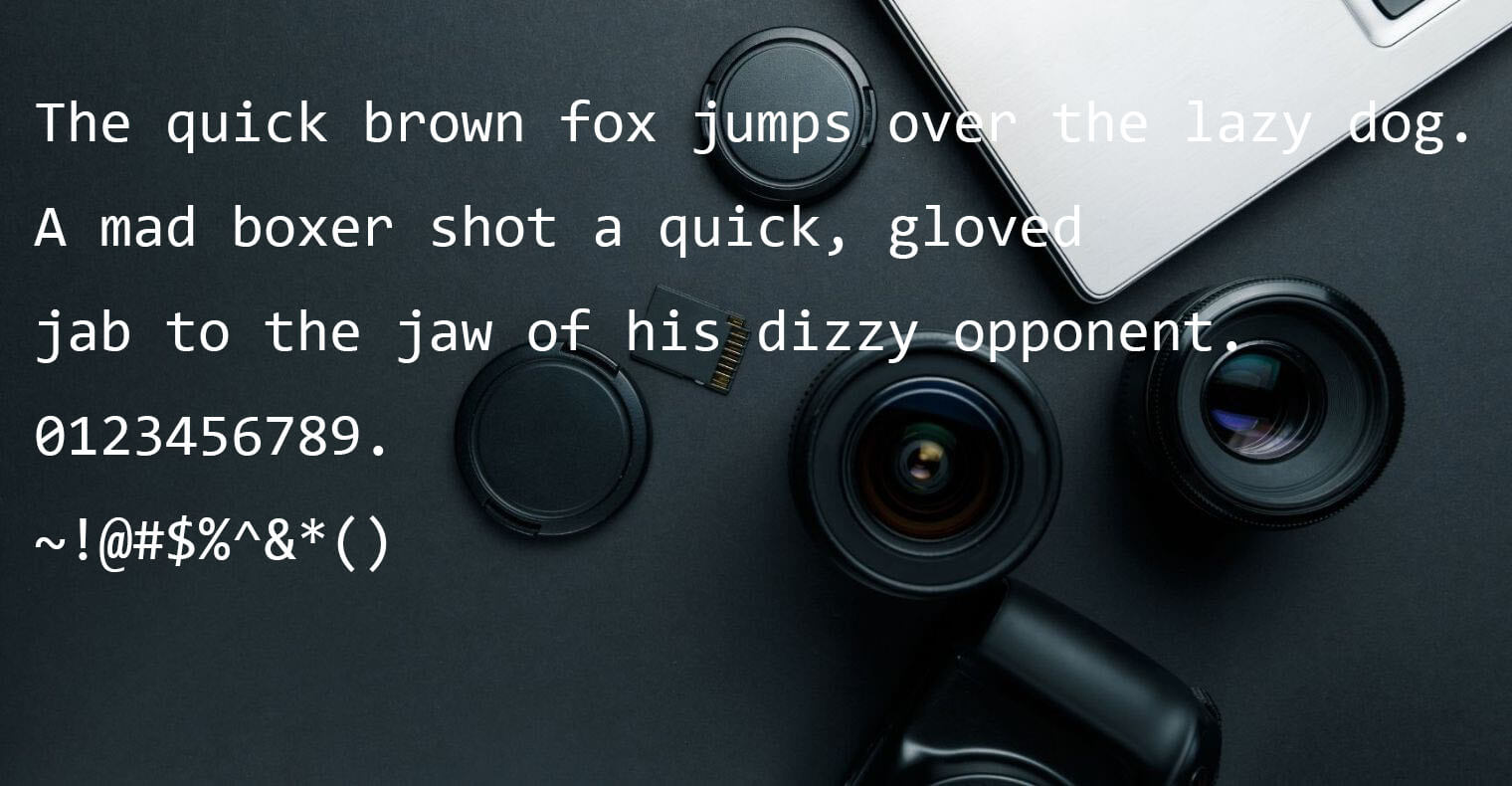
The Consolas Font is a monospace typeface family created by Luc De Groot. Since its release, it has grown into one of the most popular selections within the ClearType Font collections.
Consolas Font is also suitable for documentation purposes, hotel/shot names, contents, general reports, social media posts, descriptions, presentations, and even in offline/online newspapers.
Consolas Font Family (Includes 4 Typeface)
- Consolas Regular
- Consolas Bold
- Consolas Bold Italic
- Consolas Italic